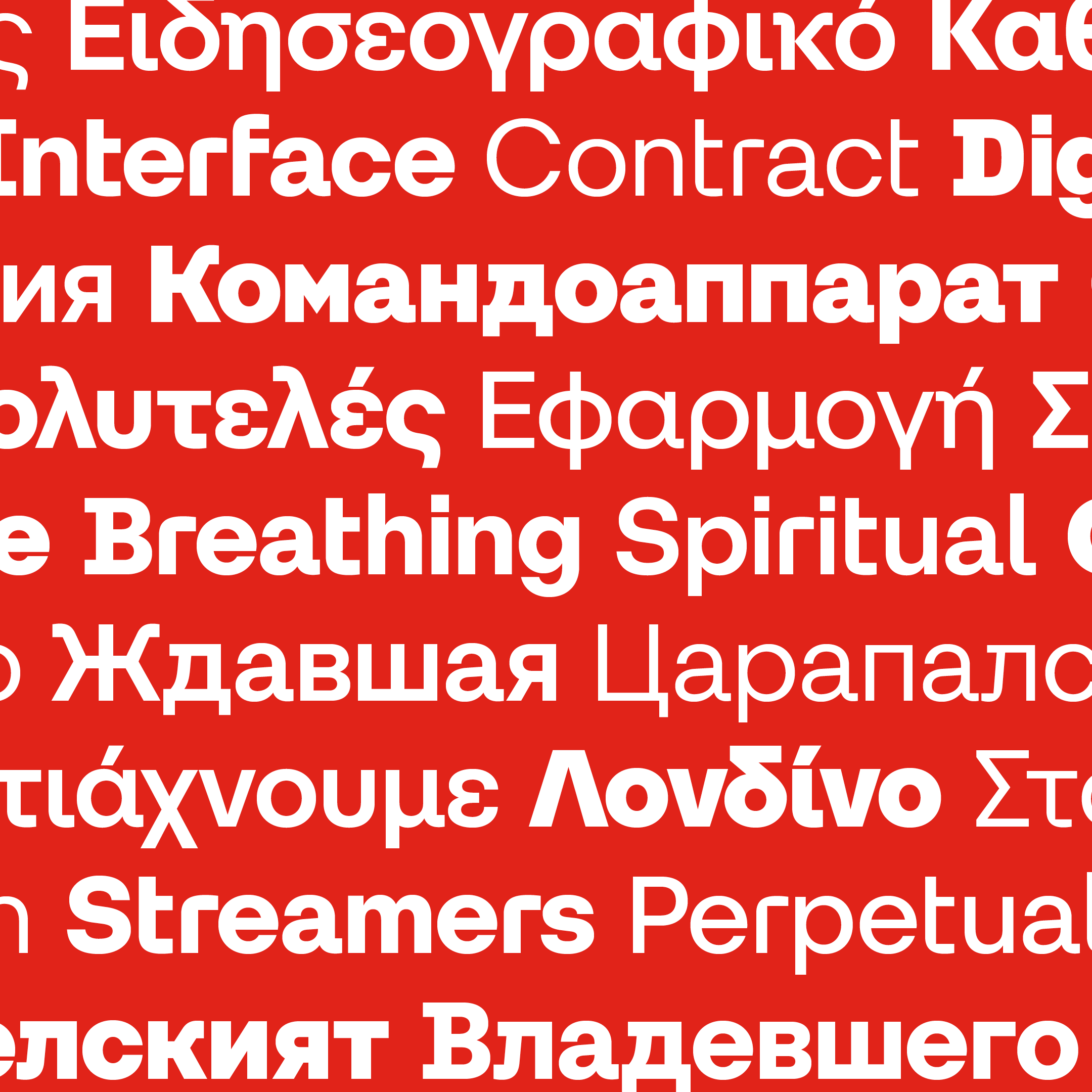
Yolo Display
Yolo is a set of strictly geometric typefaces based on a fundamental circular, square, and rectangular base. Using a monolinear stroke in character construction, it combines refracted right angles and precise curves and ends all open shapes strictly horizontal or vertical. This gives the typeface a technicist to the industrial character.
• Design: Tomáš Brousil